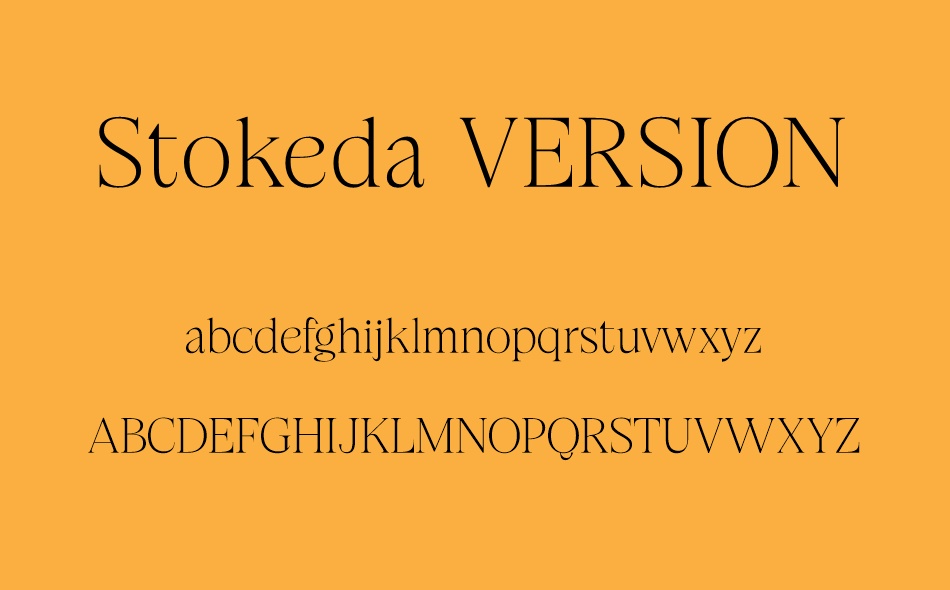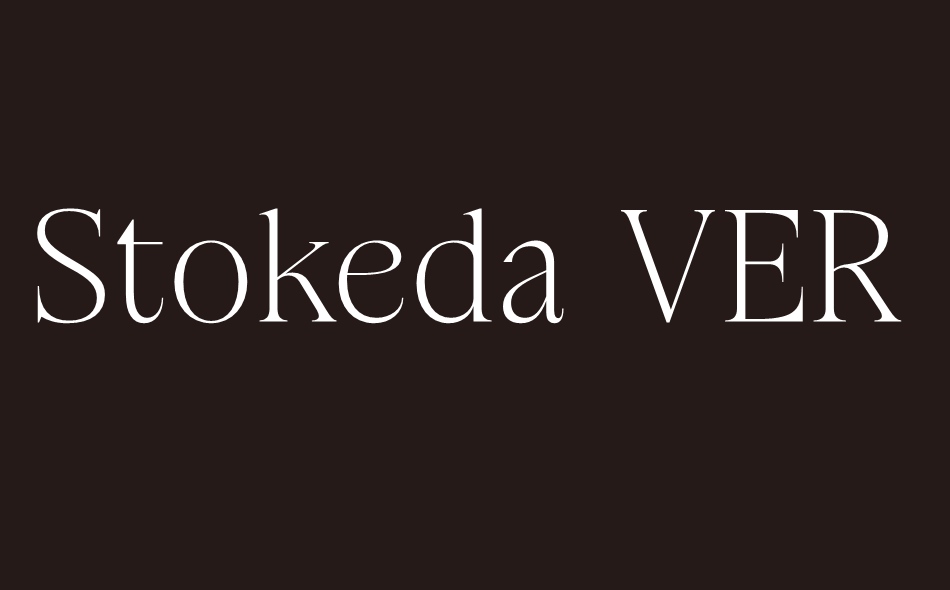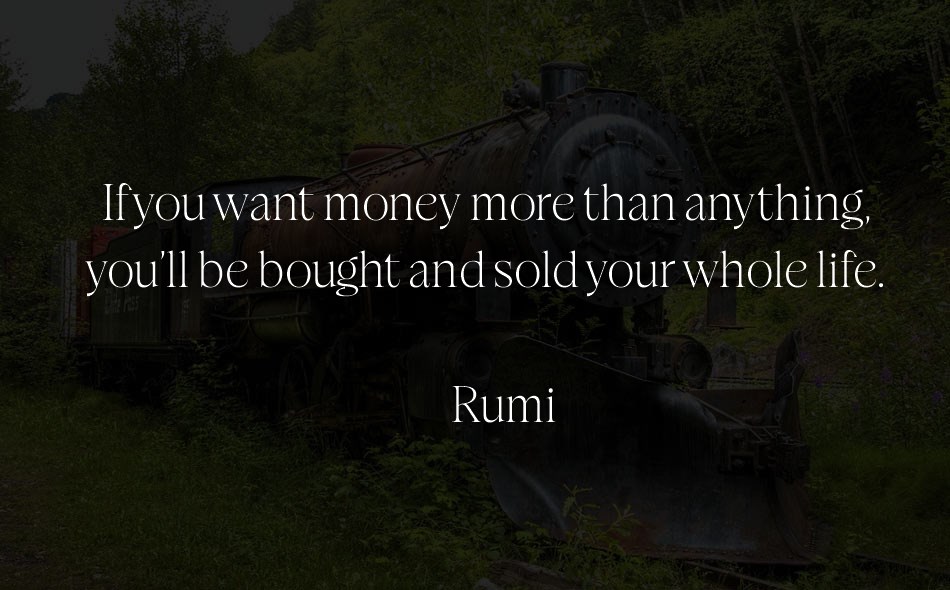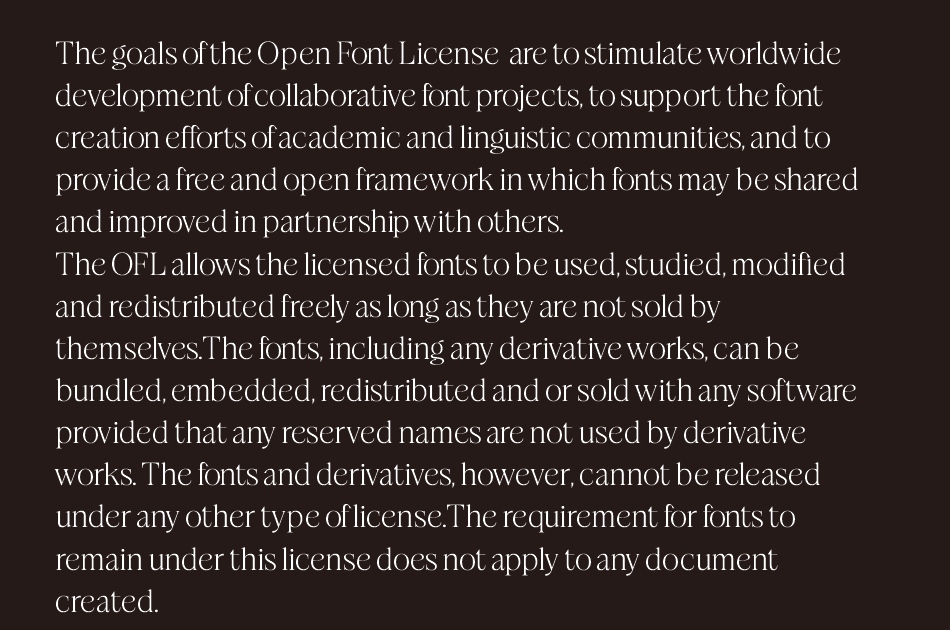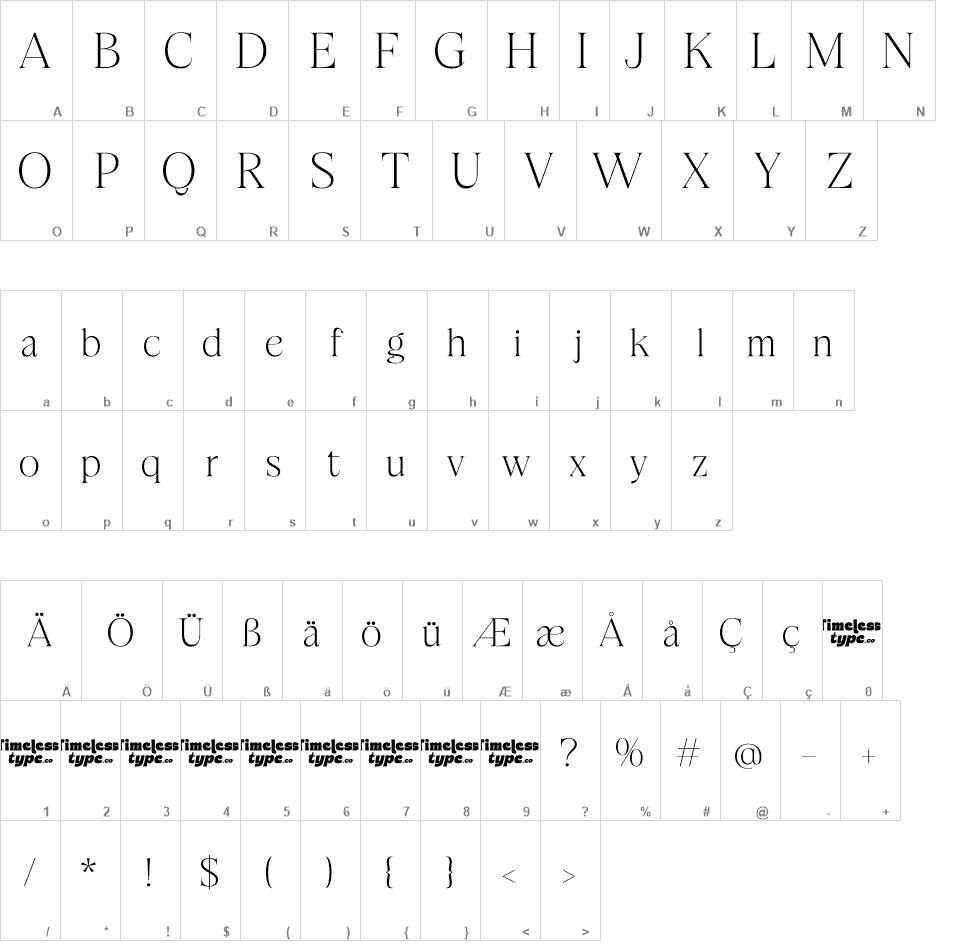
Stokeda font
Stokeda - Thin Serif Display Font
Unlock the power of sophisticated design with Stokeda - Thin Serif Display Font, a typeface that merges classic elegance with modern minimalism. This display serif is characterized by its exceptionally high-contrast strokes: delicate hairlines meet structurally solid stems, creating an instantly captivating visual rhythm. It projects an air of unrivaled luxury, perfect for brands aiming for a prestigious and refined identity where subtlety and intricate detail are paramount to the message.
Maximize your creative freedom through Stokeda - Thin Serif Display Fonts expansive suite of OpenType features. With over 60 stylish alternates and 22 custom ligatures, designers can transform standard text into expressive, bespoke wordmarks. These decorative elementsparticularly the flowing, ornate swashes on the capital lettersallow for deep personalization, ensuring your headlines stand out with a truly unique and artistic flair, suitable for both print and digital applications in Regular and Italic styles.
Build a global brand identity without linguistic limitations. With its extensive multilingual support, Stokeda - Thin Serif Display Font adapts seamlessly across global markets, making it incredibly versatile for international projects. This robust character set ensures consistent, high-quality typography regardless of the language, maintaining its delicate, professional aesthetic across all required Latin characters, proving it is a truly adaptive solution for global dissemination.
Define your niche with undeniable flair by choosing Stokeda - Thin Serif Display Font for your next high-end project. It is perfect for luxury branding, exclusive wine or cosmetic packaging, premium editorial layouts, and sophisticated fashion advertisements. Leverage its refined appearance to convey exclusivity and heritage, guaranteeing that your product or service communicates authority and timeless style to a discerning, high-value audience.